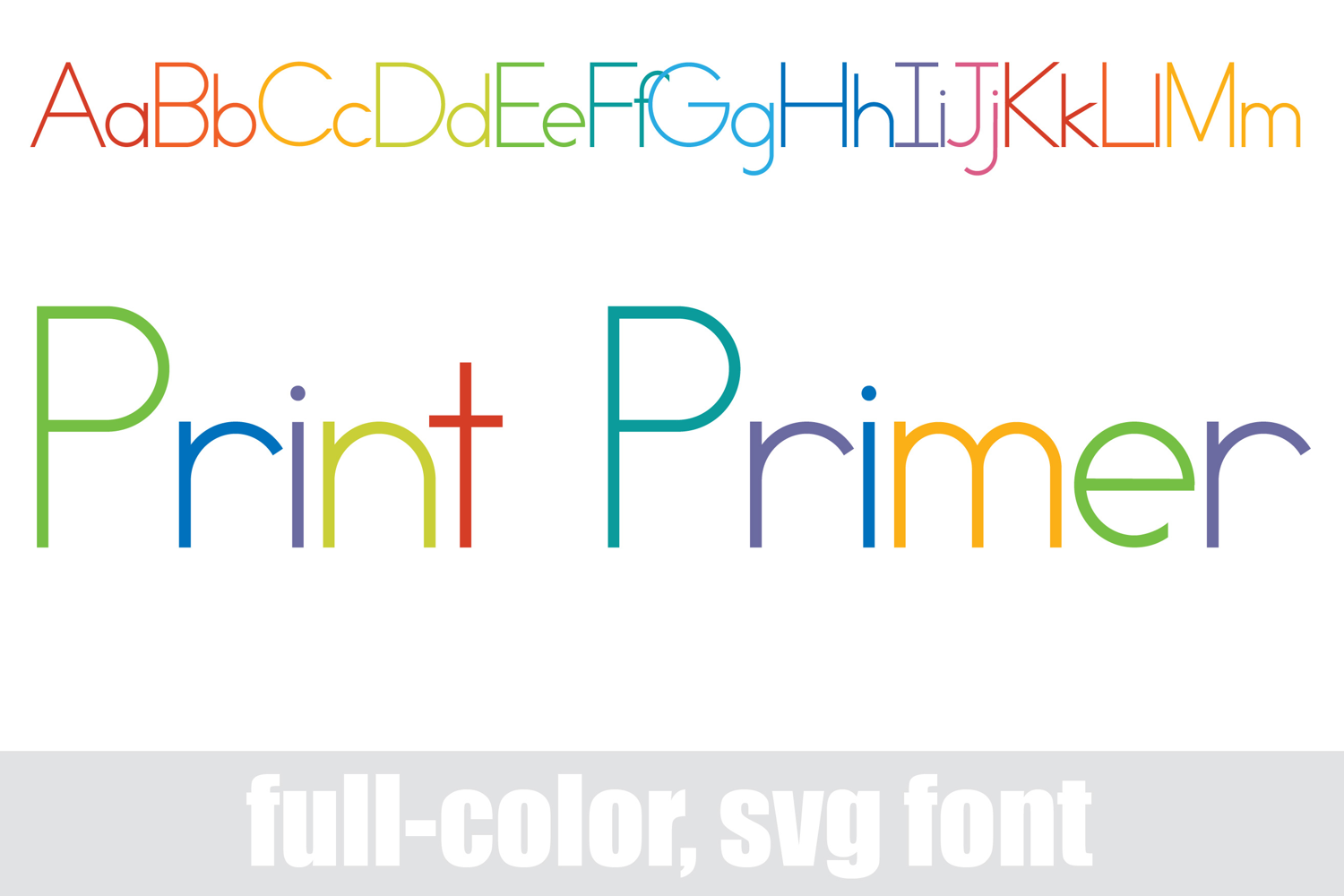
Print Primer Color Font
This full-color, perfectly printed primer font is done in a bright rainbow of colors. There are 2 alt case with additional colors of all the letters you can access through your system's character maps.